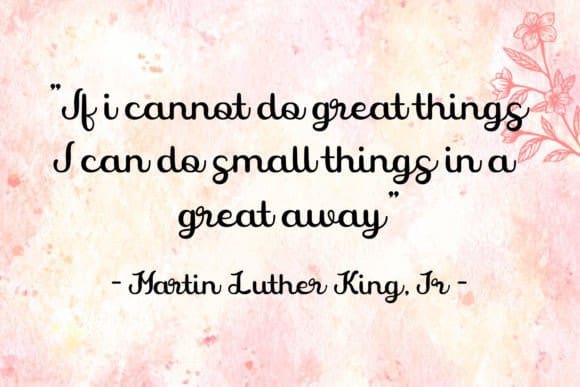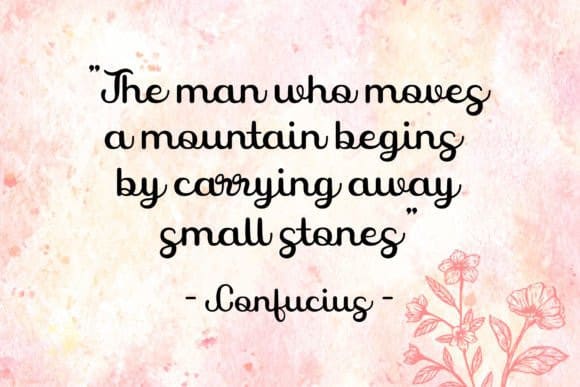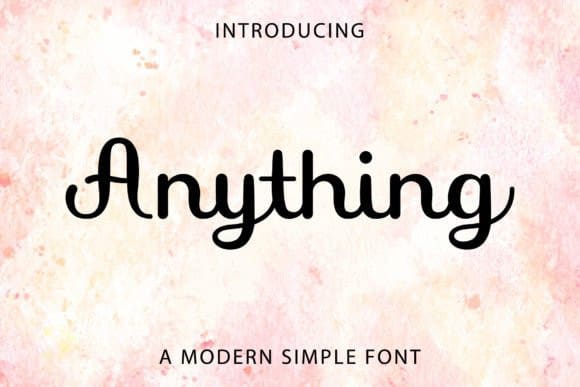
Anything Typeface
Anything Typeface is a stylish and incredibly elegant decorative handwritten font. It looks stunning on wedding invitations, thank you cards, quotes, greeting cards, logos, business cards, and every other design which needs a handwritten touch.